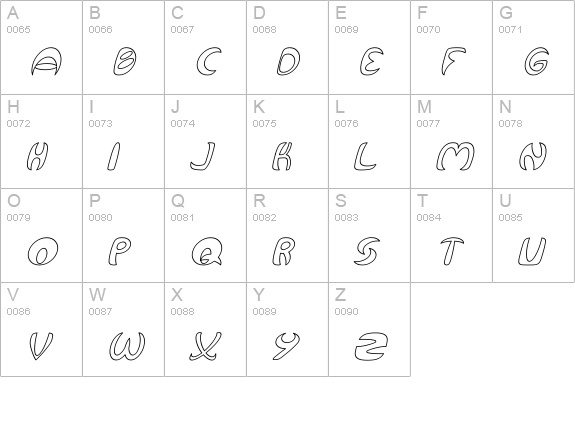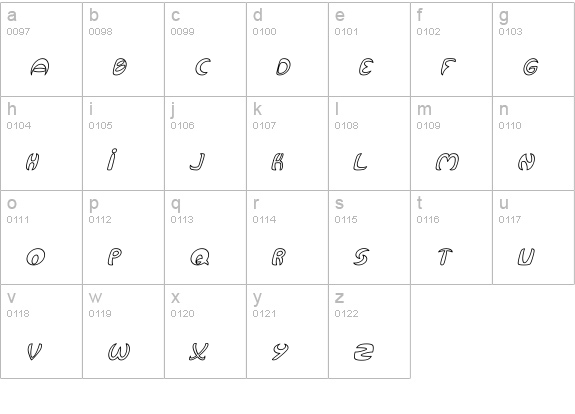
Qurve Hollow Italic is a distinctive, italic variant in the Qurve typeface family \xE2\x80\x94 well suited to design and typography projects.
Qurve Hollow Italic is a breathtaking font that effortlessly combines elegance and modernity. This exquisite typeface draws inspiration from the delicate curves and intricate details of calligraphy, resulting in a truly unique and captivating design. Its italicized form adds a touch of sophistication and dynamism, making it perfect for a variety of creative projects. The smooth and flowing lines of Qurve Hollow Italic create a sense of movement and grace, while its hollow interior adds an element of intrigue and mystery. This font truly stands out, commanding attention and leaving a lasting impression. What makes Qurve Hollow Italic even more remarkable is that it is freely available to download at FontsMarket.com. This means that you can effortlessly add this stunning font to your collection without any cost. Whether you are a professional designer or simply someone who enjoys experimenting with typography, Qurve Hollow Italic is a must-have addition to your creative toolbox. With its versatility and striking aesthetic, Qurve Hollow Italic is perfect for a wide range of design projects. Use it to bring elegance to invitations, sophistication to branding materials, or a touch of flair to social media graphics. No matter the application, Qurve Hollow Italic will elevate your designs and leave a lasting impression on your audience. So why wait? Download Qurve Hollow Italic today from FontsMarket.com and unlock the potential to create visually stunning and captivating designs. With its free availability, there's no reason not to explore the endless possibilities that this remarkable font has to offer. Let Qurve Hollow Italic inspire your creativity and take your designs to new heights.